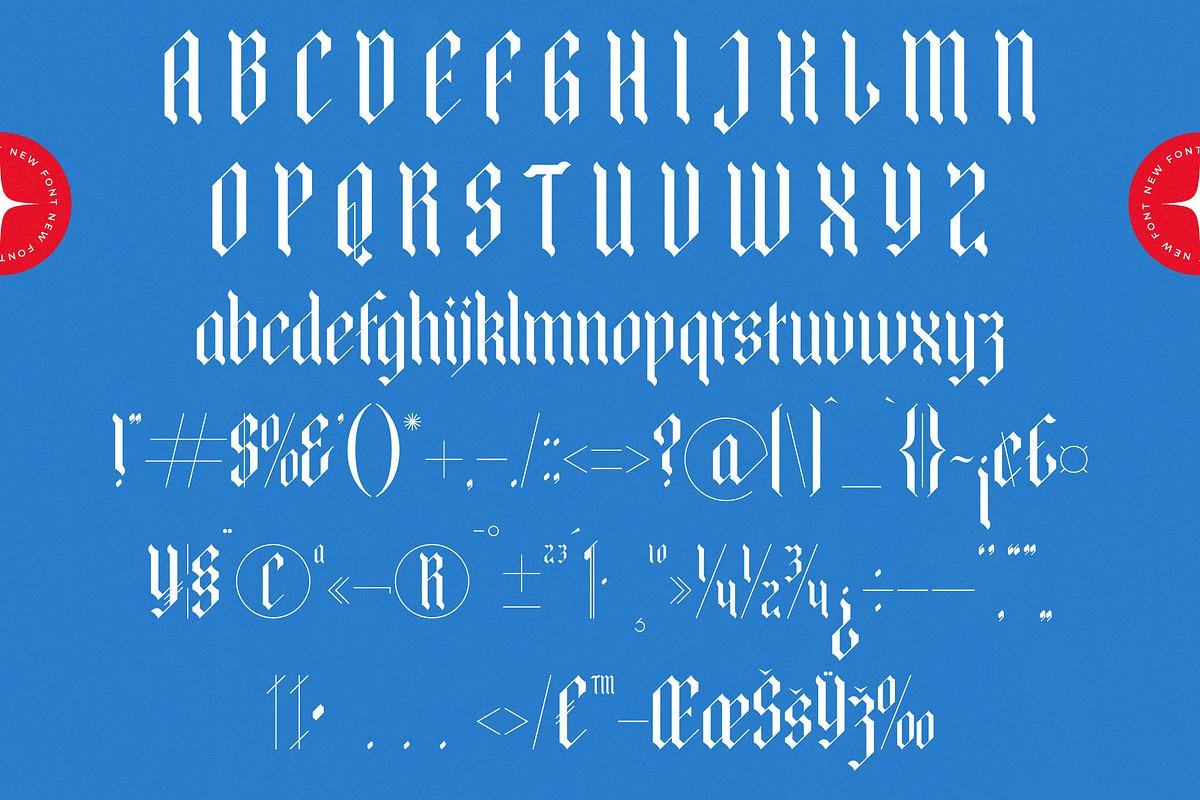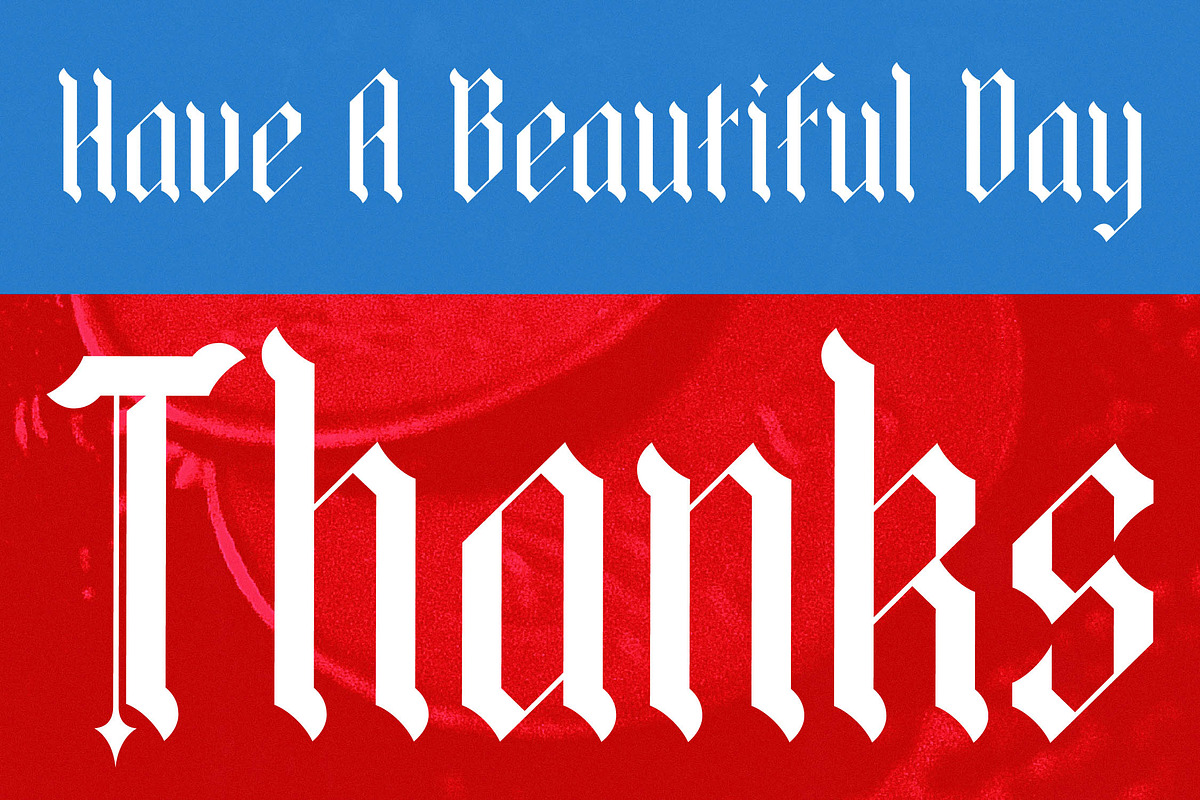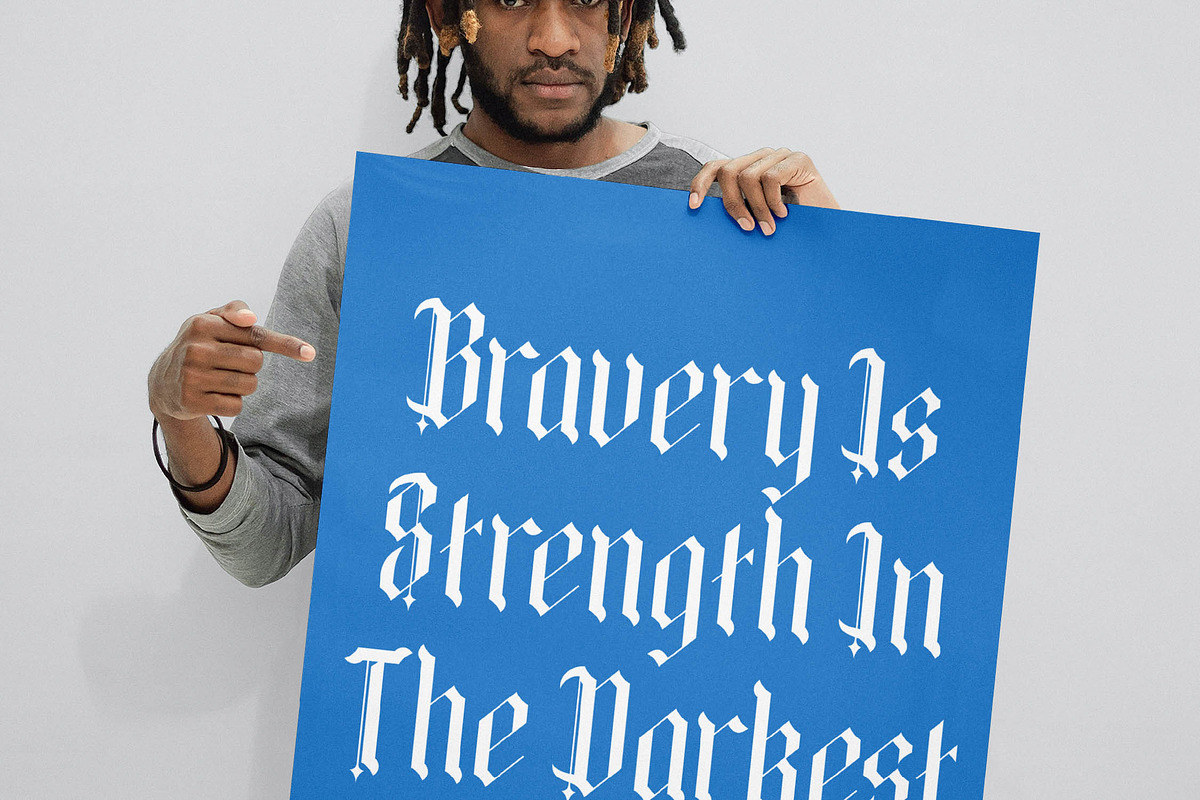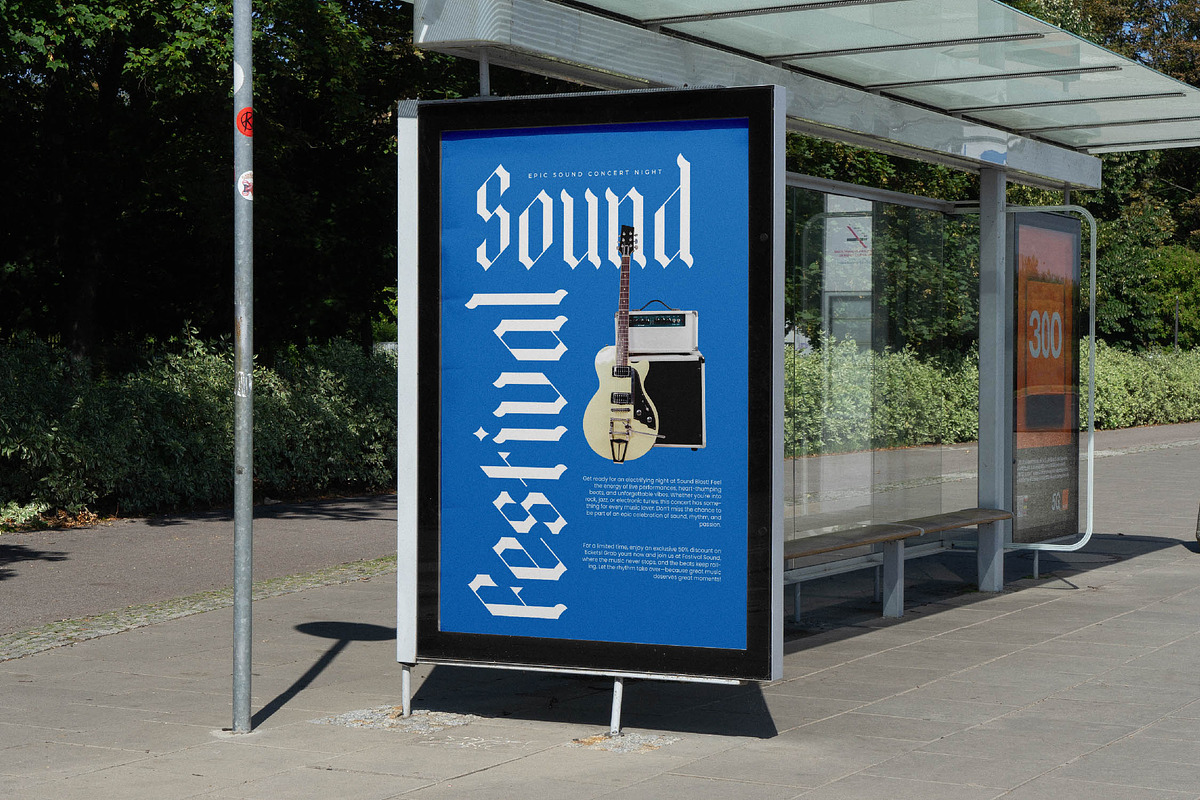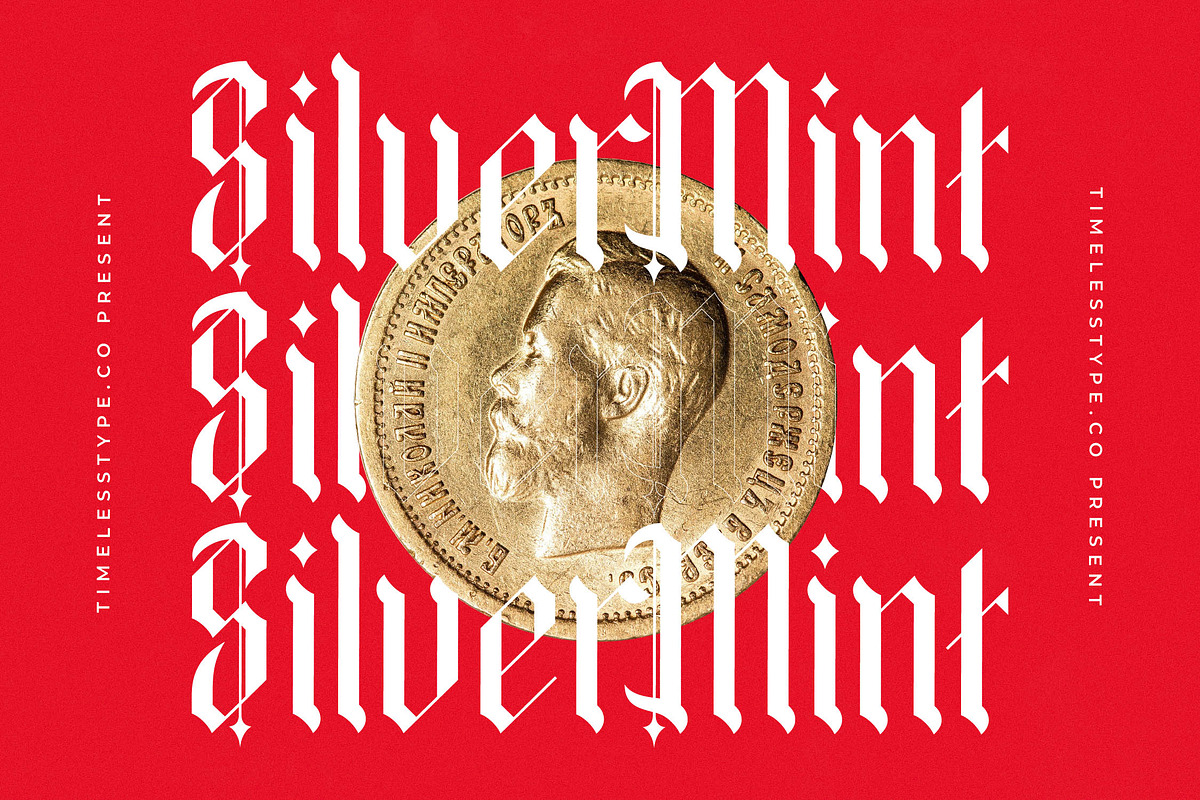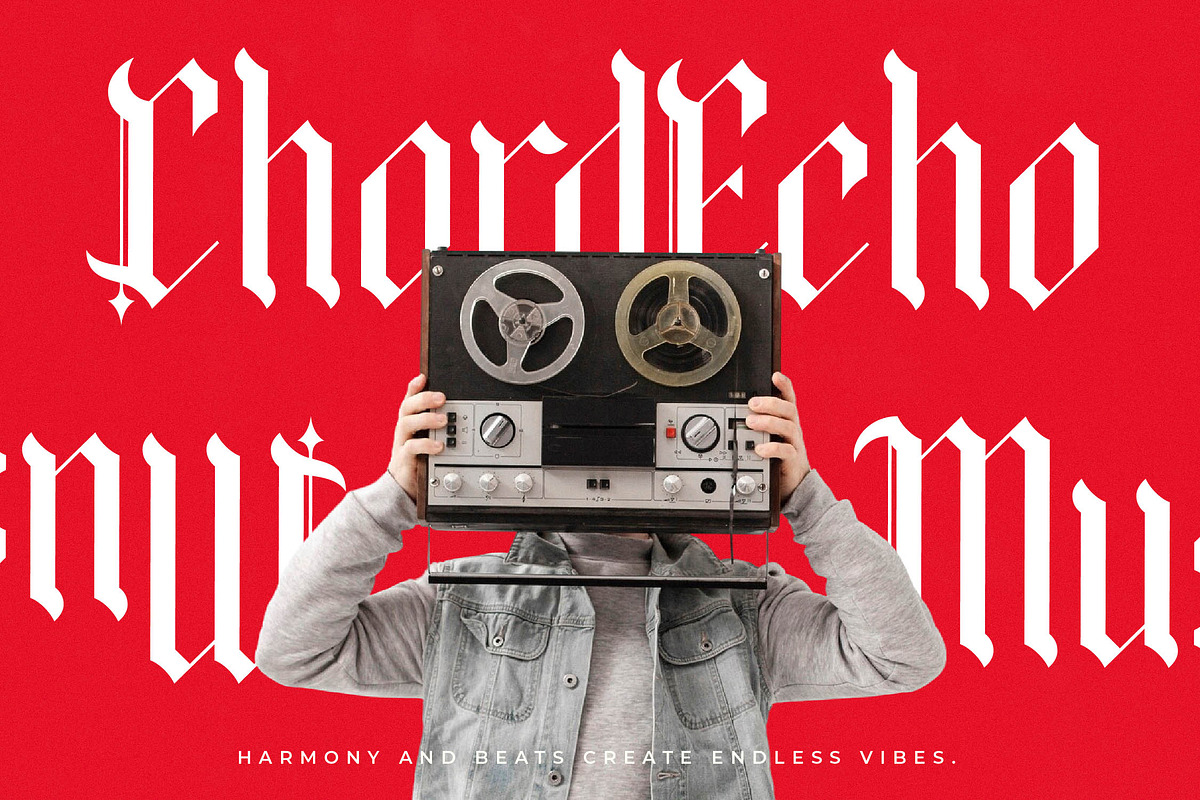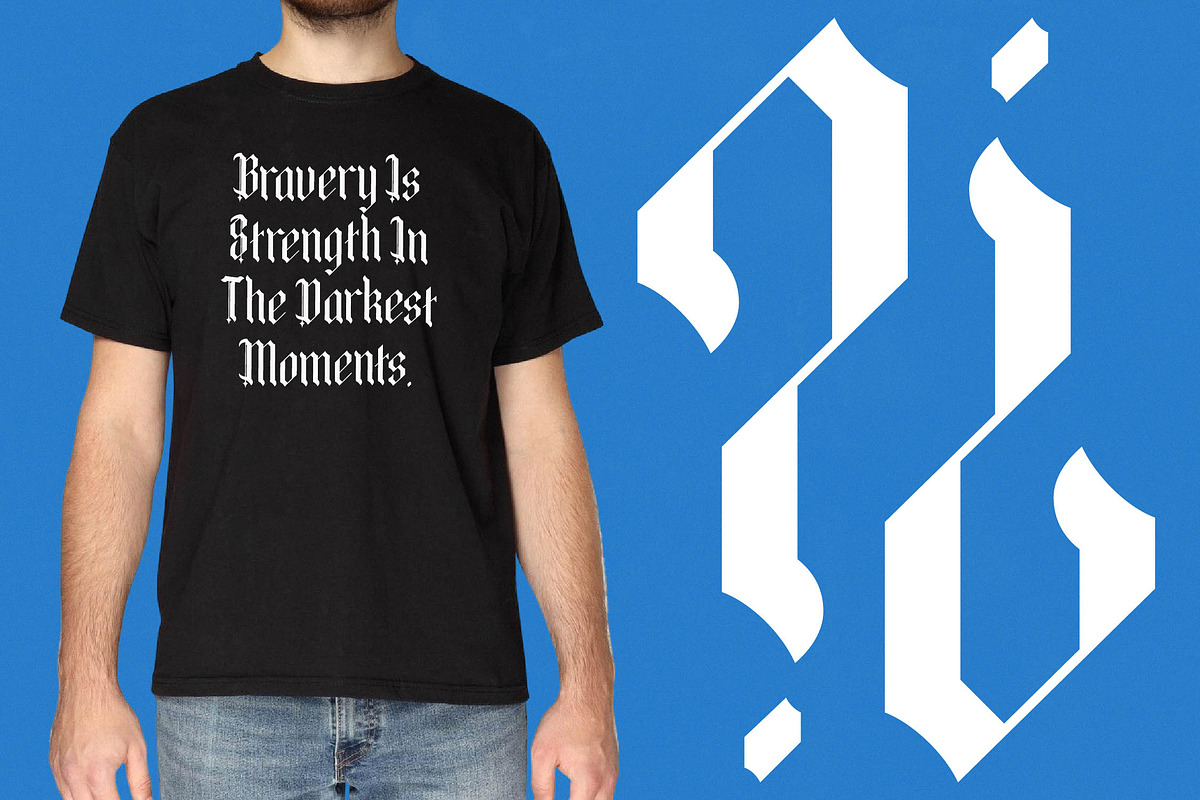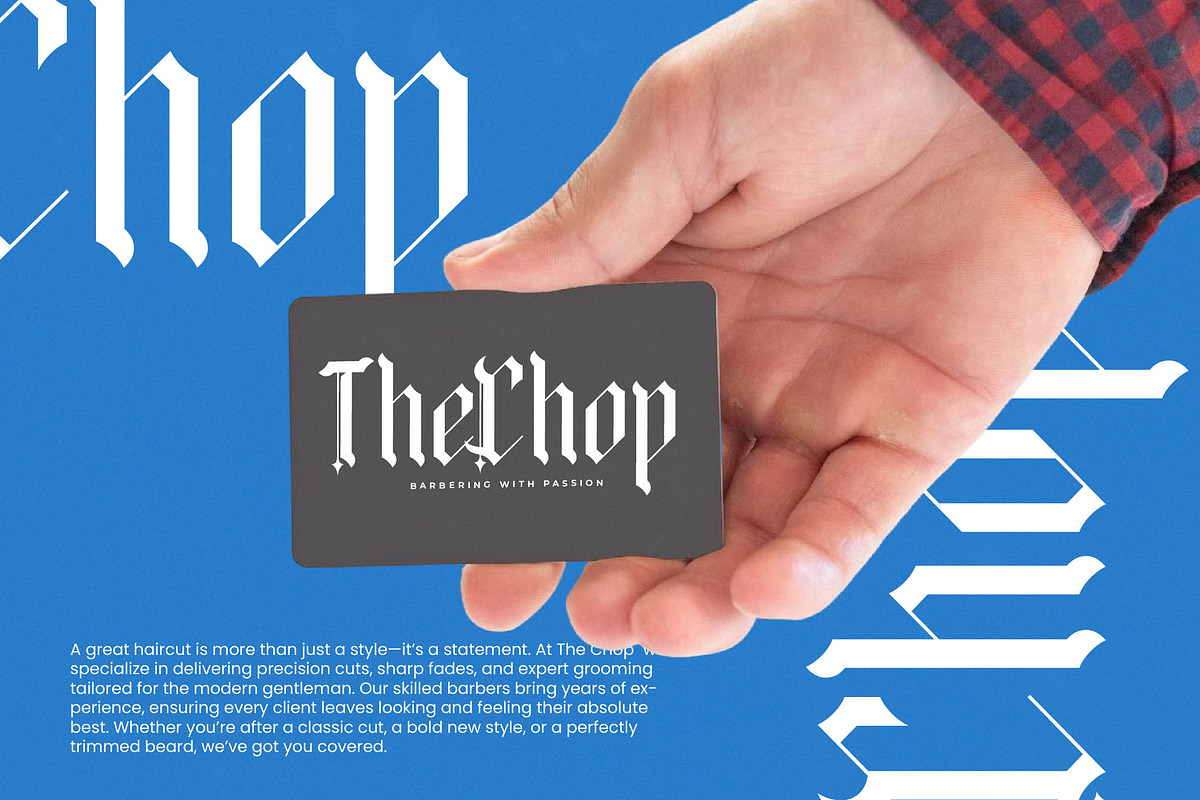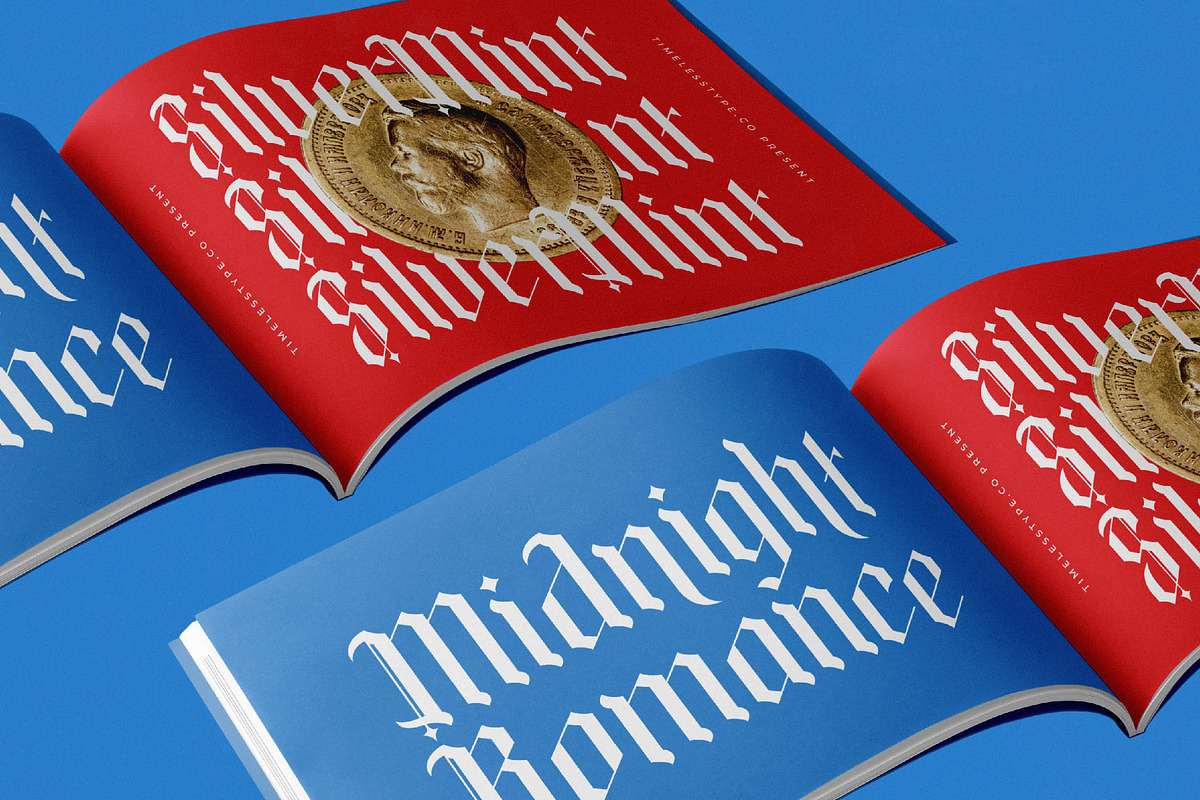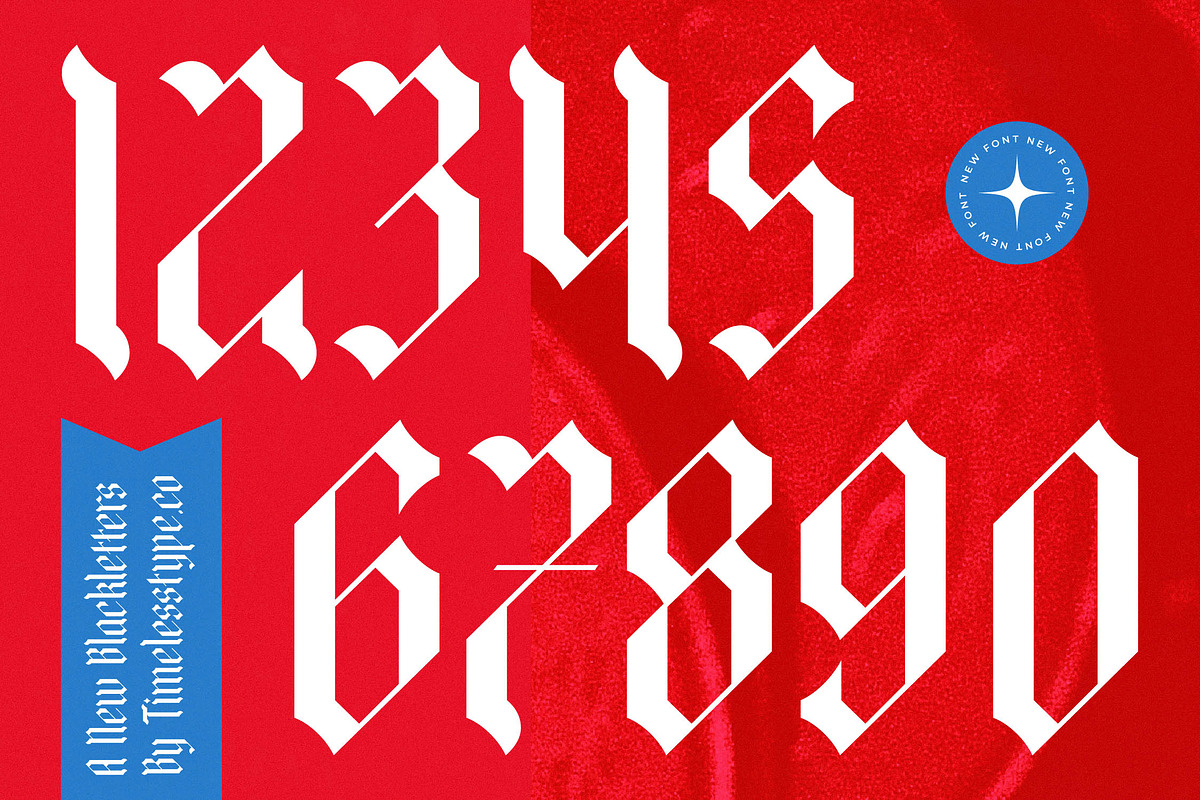
Bold Riot - Modern Blackletter
Unleash a wave of typographic rebellion with Bold Riot, a typeface that commands attention through its sharp, defiant strokes. This isn't just a font; it's a visual statement designed to shatter the mundane and elevate your creative projects to a new realm of intensity.
Drawing inspiration from the gritty energy of urban street culture and the timeless precision of classical fraktur, this typeface bridges the gap between historical heritage and contemporary chaos. The atmosphere is one of raw power, blending the meticulous craft of old-world scribes with a modern, disruptive spirit.
The personality of this font is defined by its uncompromising stance, acting as a modern serif display alternative that prioritizes luxury typography with a dark, avant-garde twist. Every glyph is crafted for maximum branding impact, offering a high-contrast serif feel that functions as a powerful editorial font for high-stakes design.
Perfectly aligned with the modern serif trend, this typeface taps into the resurgence of dark, character-driven aesthetics currently dominating the creative landscape. It caters to the demand for editorial display fonts that break traditional rules, providing character-driven typography that feels both fresh and fundamentally grounded.
This versatile asset is the ultimate choice for high-impact logo design and comprehensive branding systems that need to stand out in a crowded market. Whether you are working on edgy editorial layouts, bold packaging, or non-traditional wedding invitations and high-end fashion lookbooks, it delivers a unique visual edge.
The package is technically robust, featuring a vast array of ligatures, alternates, and decorative swashes that allow for deep customization and unique letter combinations. With full support for multilingual projects and a comprehensive set of international characters, this typeface ensures your message resonates globally.